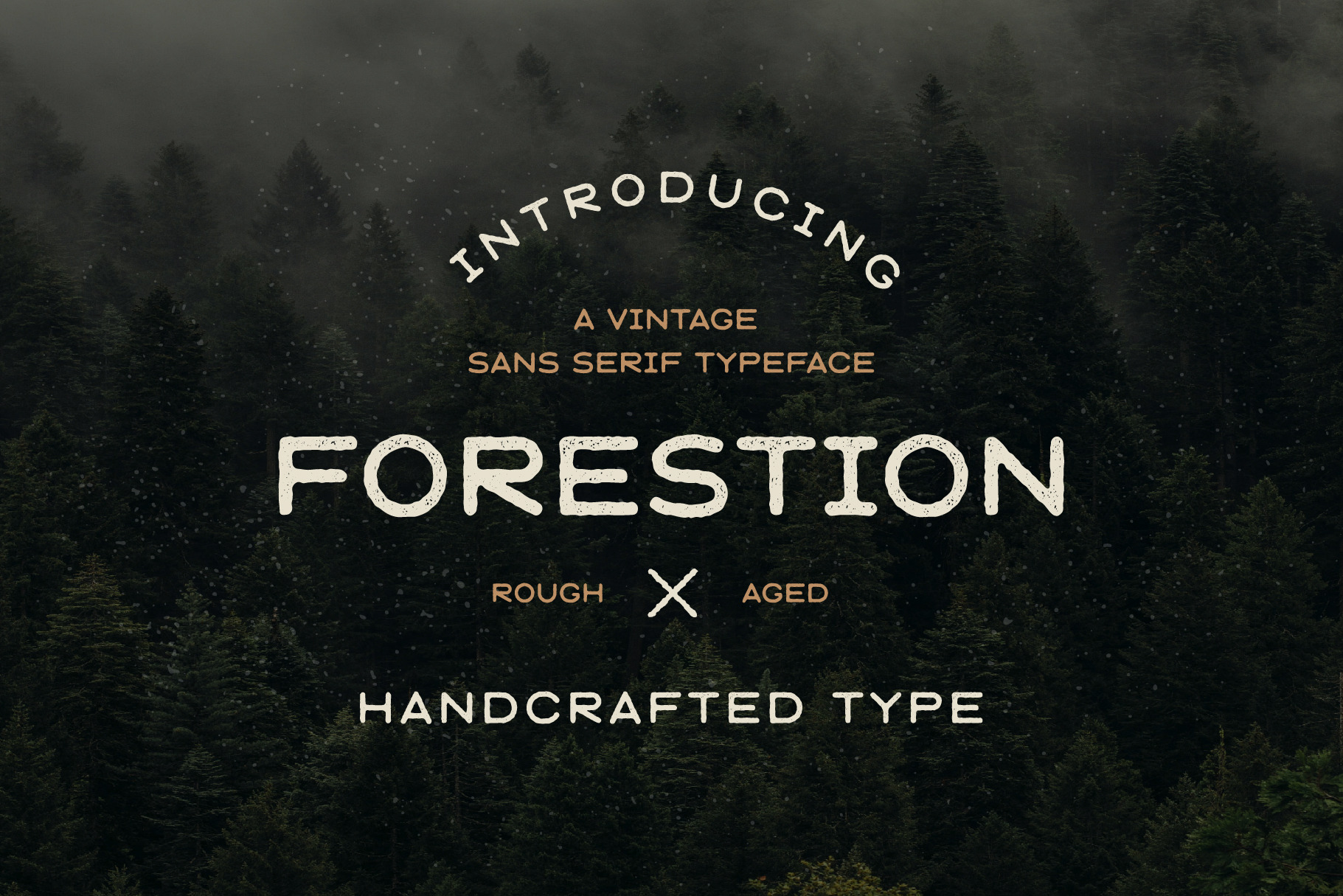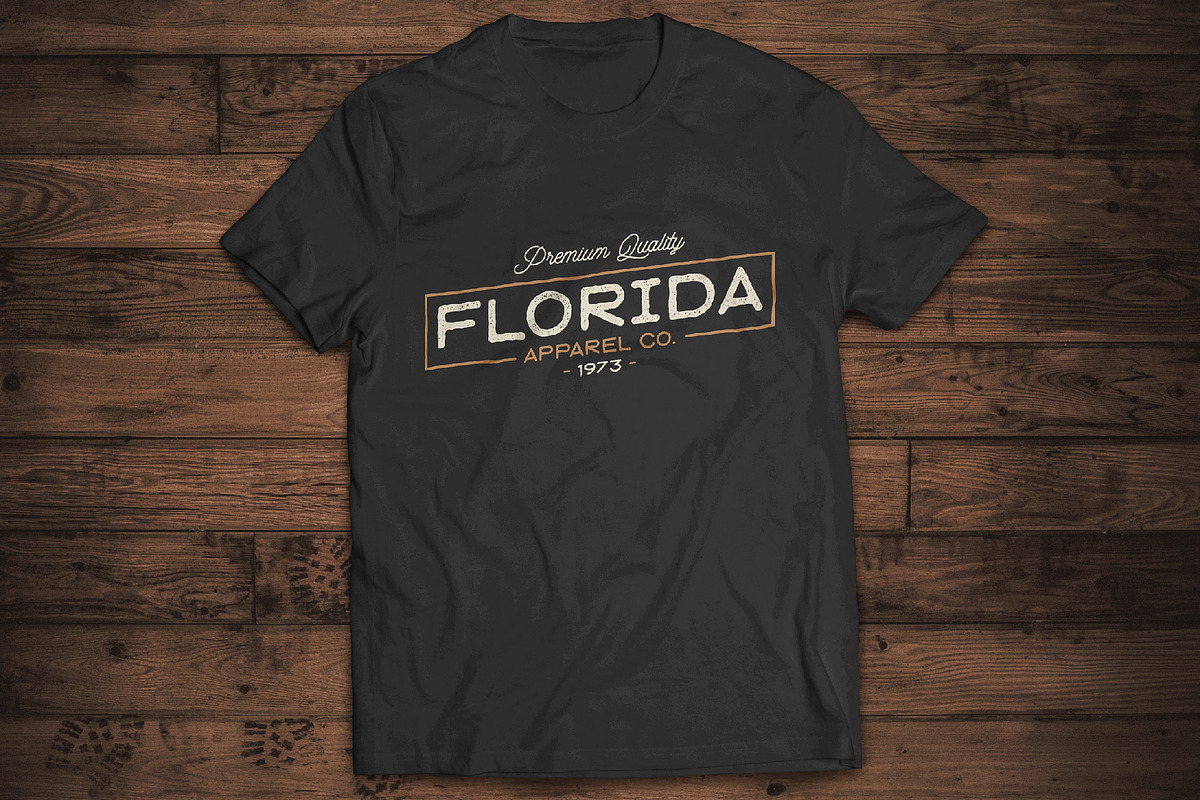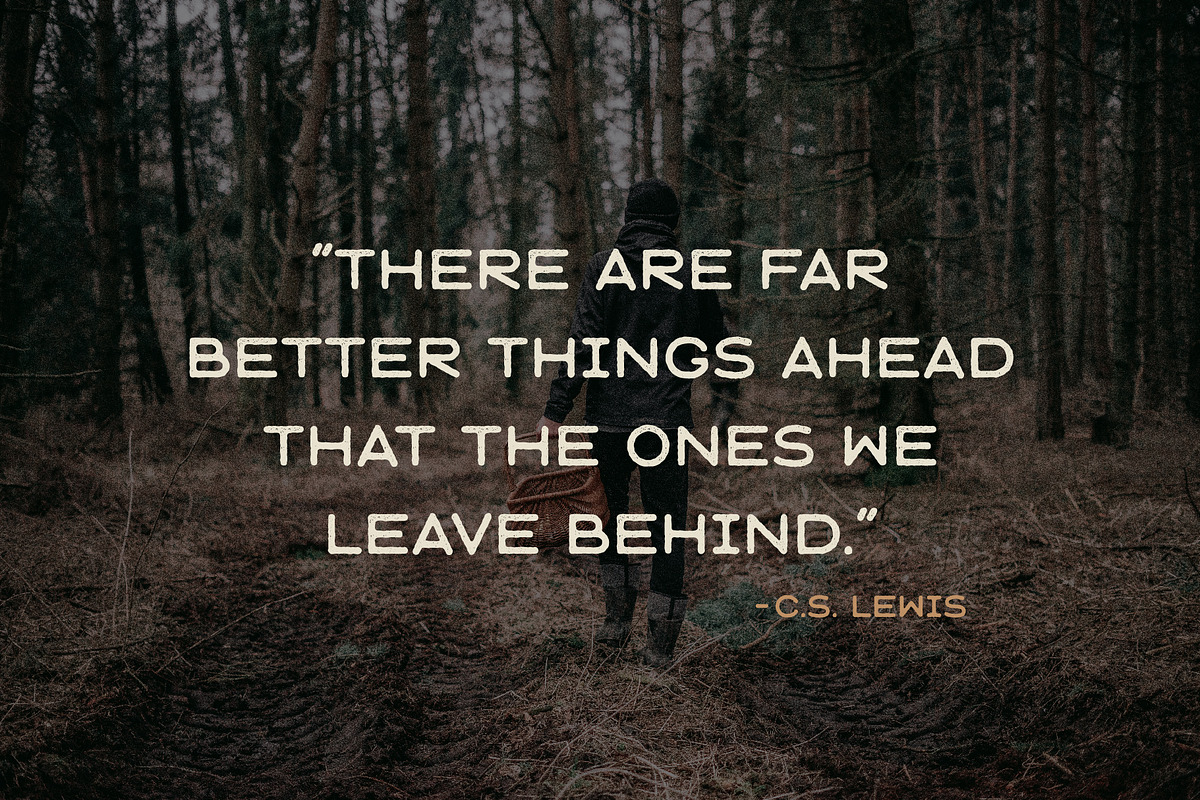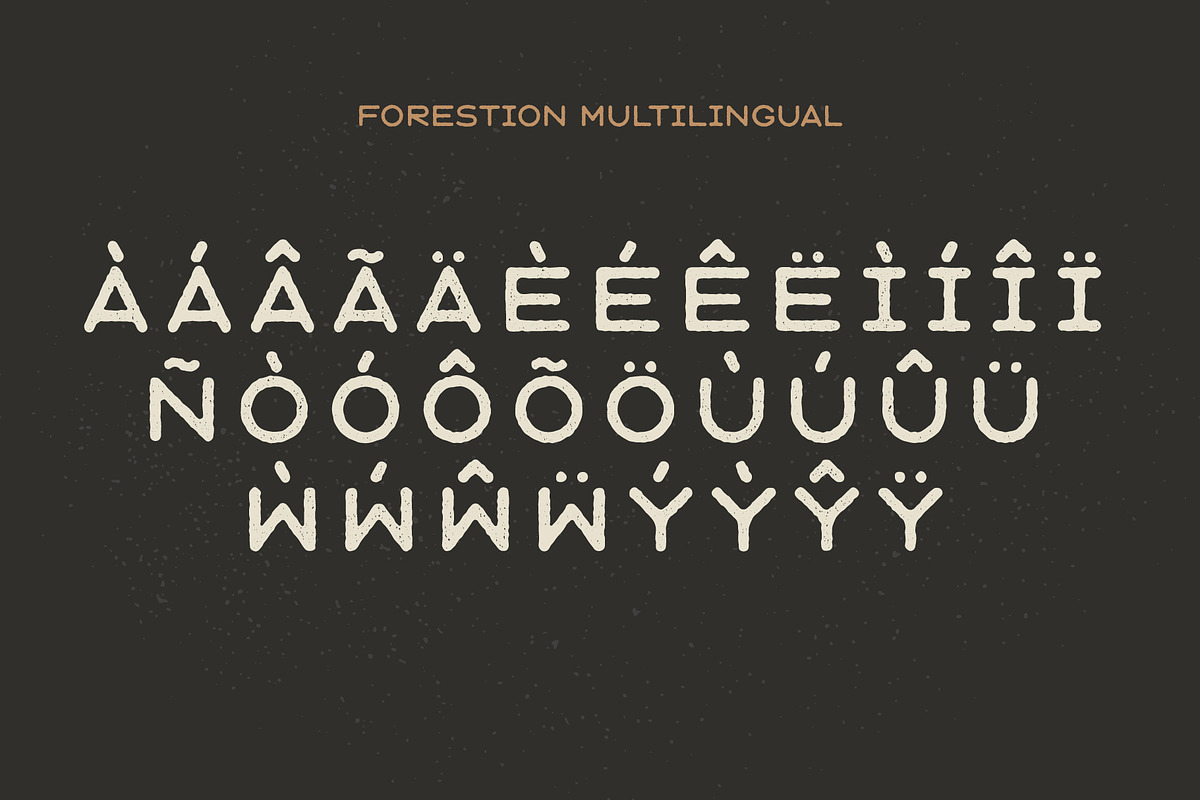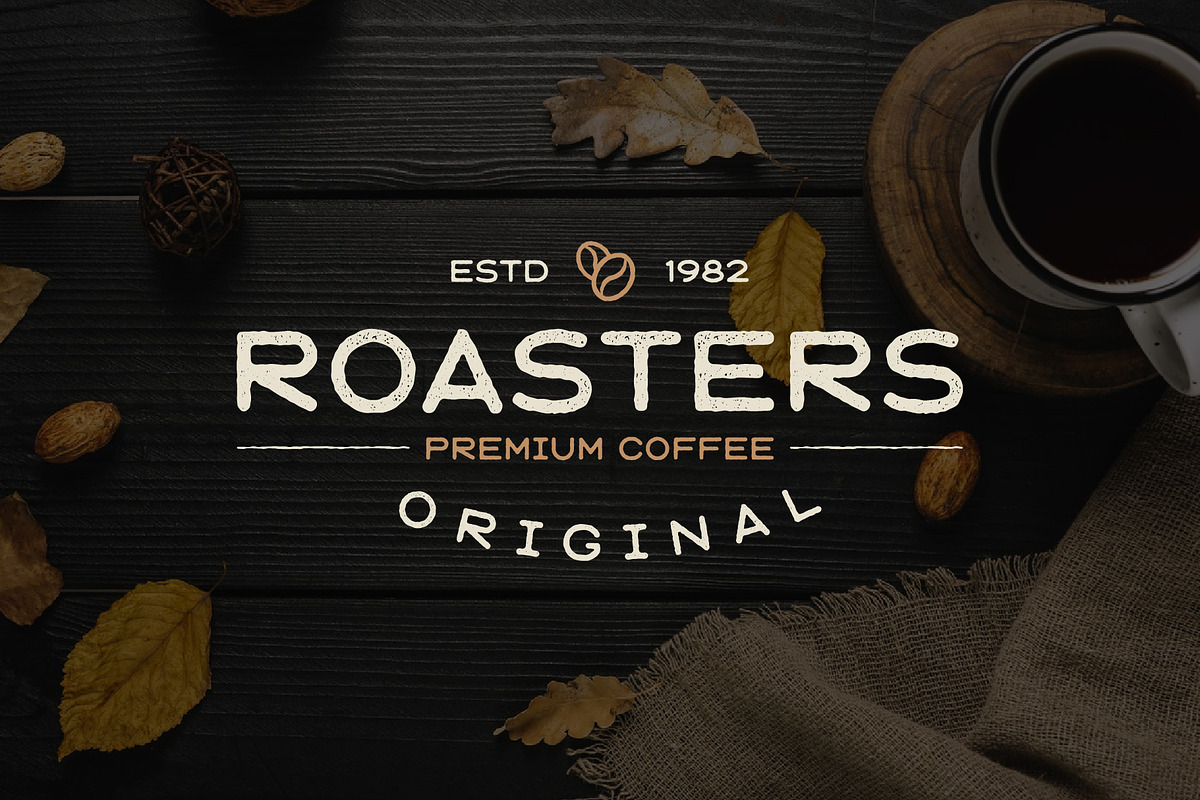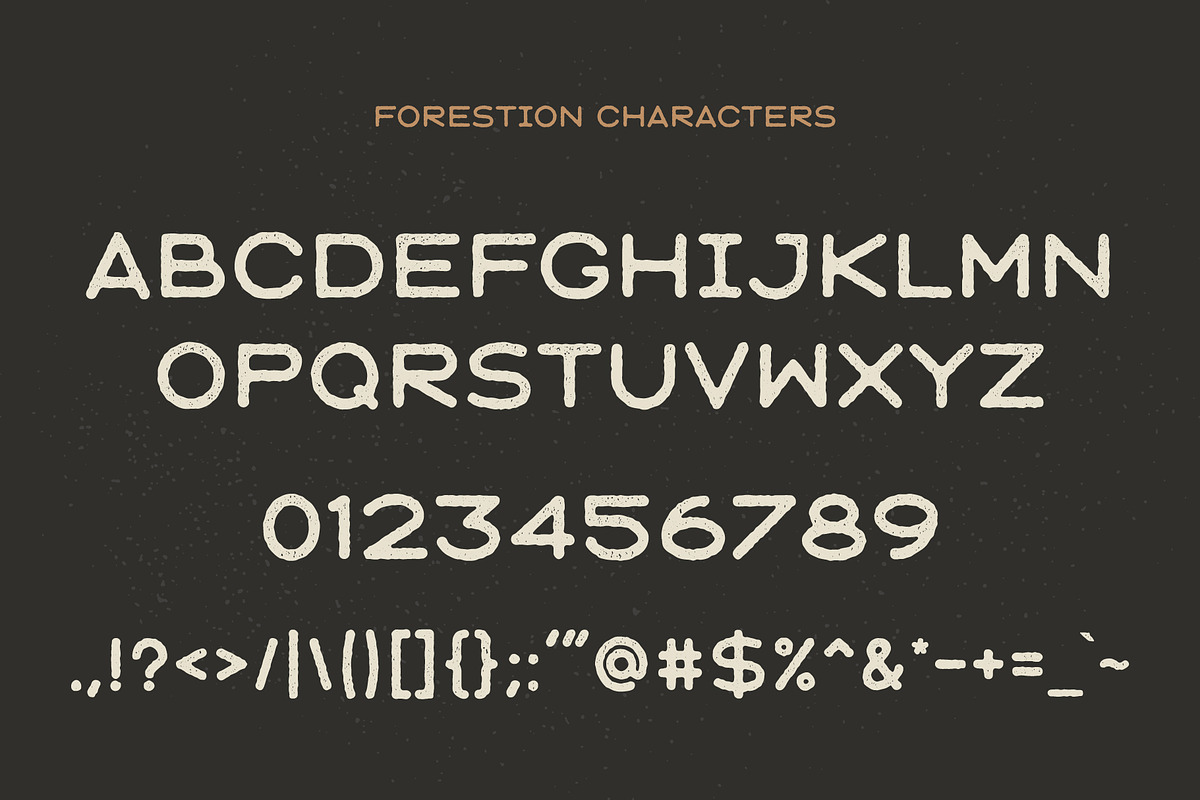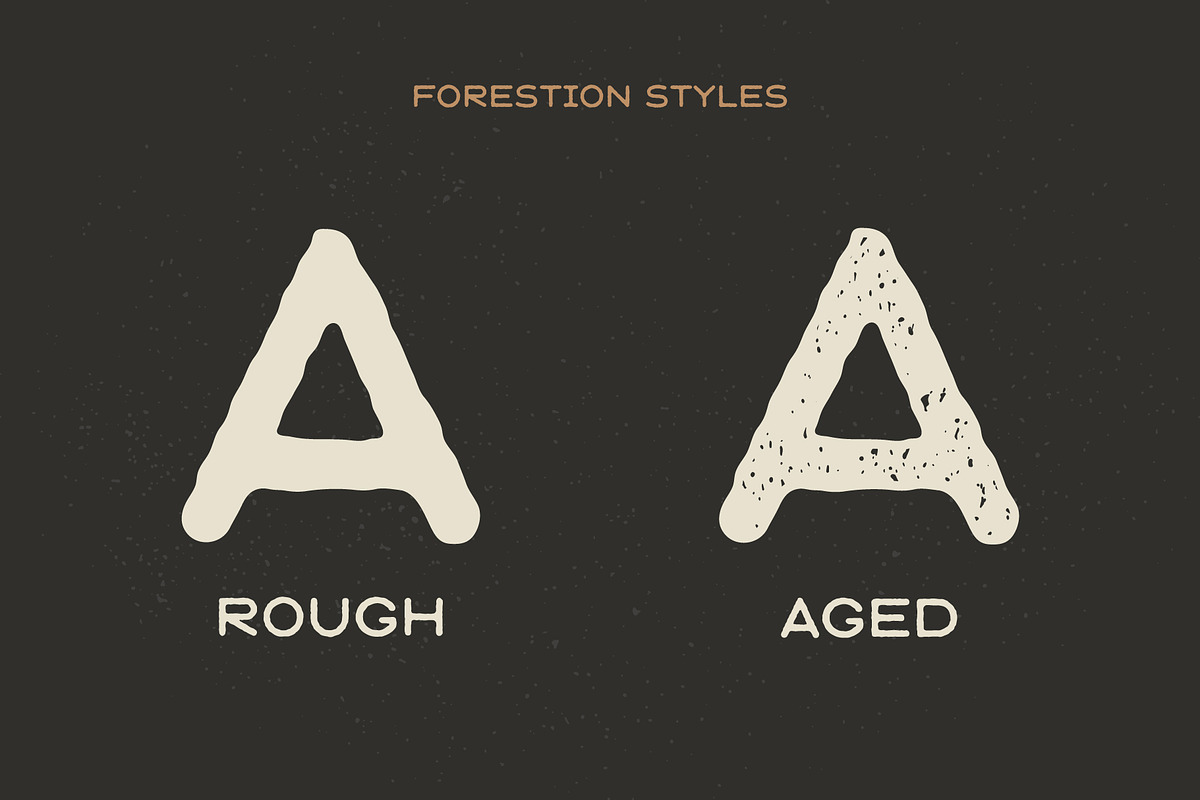
Introducing Forestion – a vintage handcrafted font!
Forestion is a vintage display font that has two styles (rough and aged). You can use it to bring a vintage aesthetic to your projects such as logo design, t-shirts, presentations, posters, labels, badges and many more!
- Uppercase, Numbers and Punctuation Included
- Rough and Aged Styles